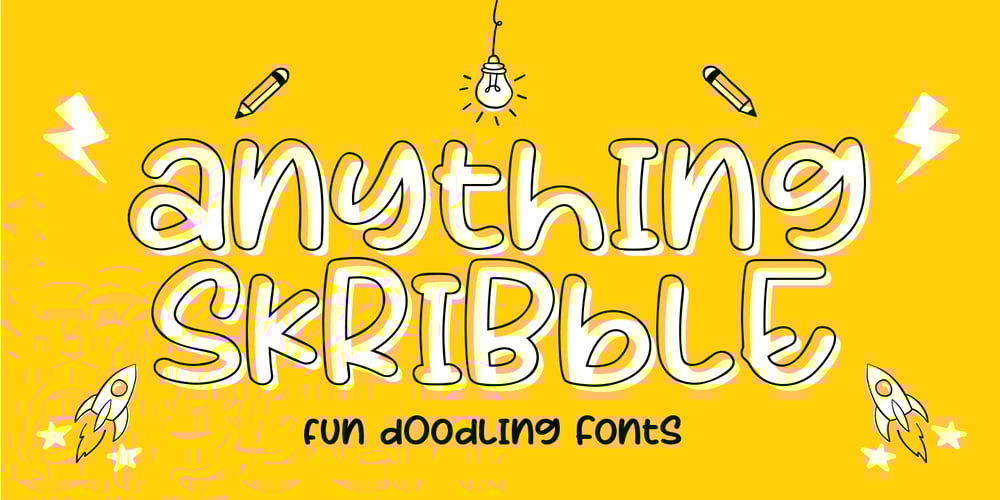
Anything Skribble Font Family was designed by Stefie Justprince and published by Crumphand. Anything Skribble contains 2 styles and family package options. Hello, Introducing the new font “Anything Skribble”the font was very cute. Match for your doodling, Scribble motion and Etc.Good readability, good contour.What’s Included ? Uppercase Lowercase Numerals Symbols Multilingual Supports. Thank you, Regards!